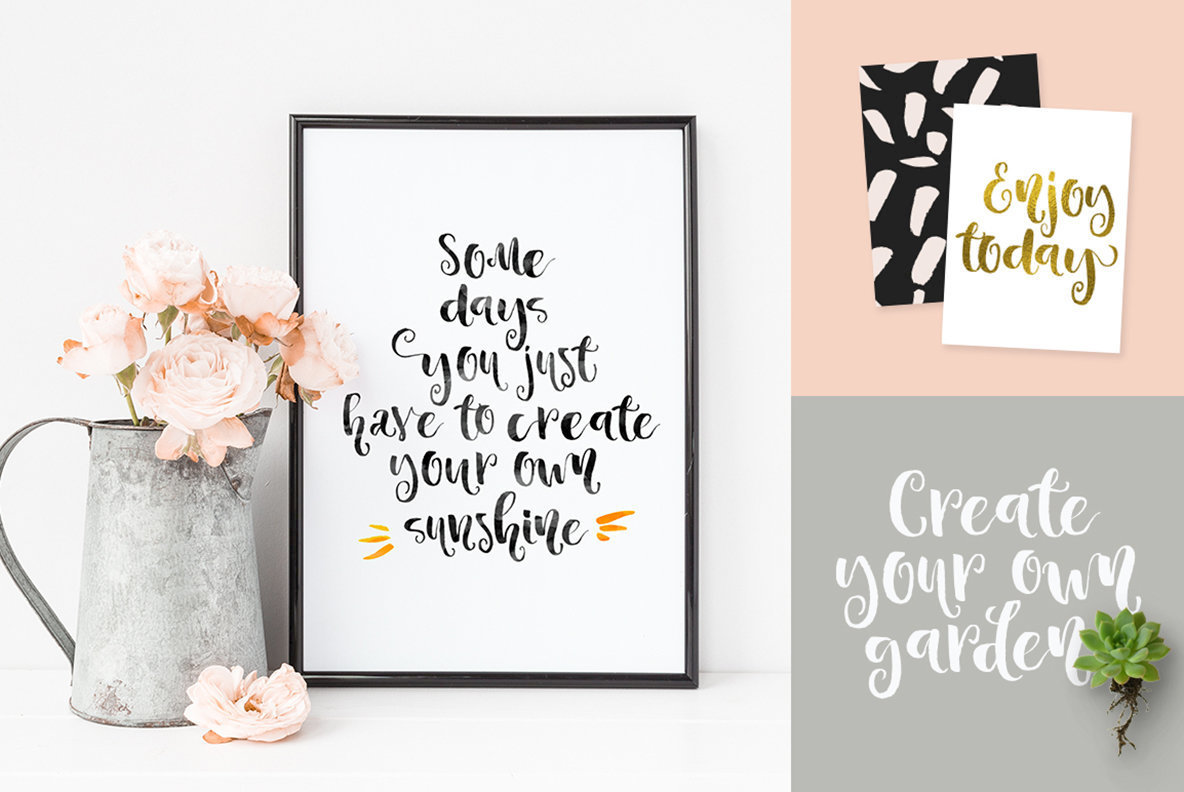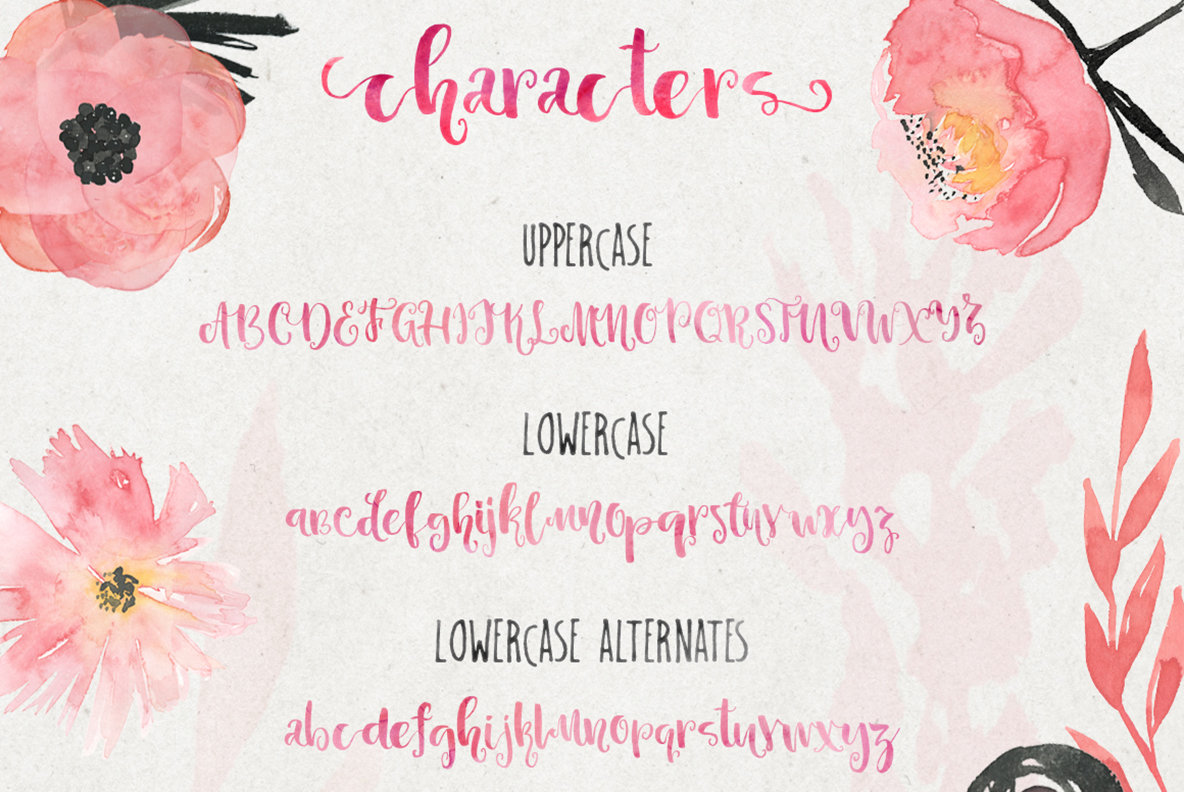
Candyland Font
Candyland
Candyland is very feminine, elegant, yet playful font with tons of characters to choose from.
Candyland comes with full set of lowercase alternates, as well as initial and terminal forms, and the great news is: all of those are PUA encoded! That means that you will be able to access all characters from any application.
Main Features:
- standart lowercase and uppercase characters (as well as numbers and punctuation)
- full set of lowercase alternates
- initial & terminal forms of all lowercase letters
Candyland is a perfect font for:
- Wedding cards & save the dates
- Feminine logos and branding
- Recipes & cooking books
- Book titles (especially romantic ones :)